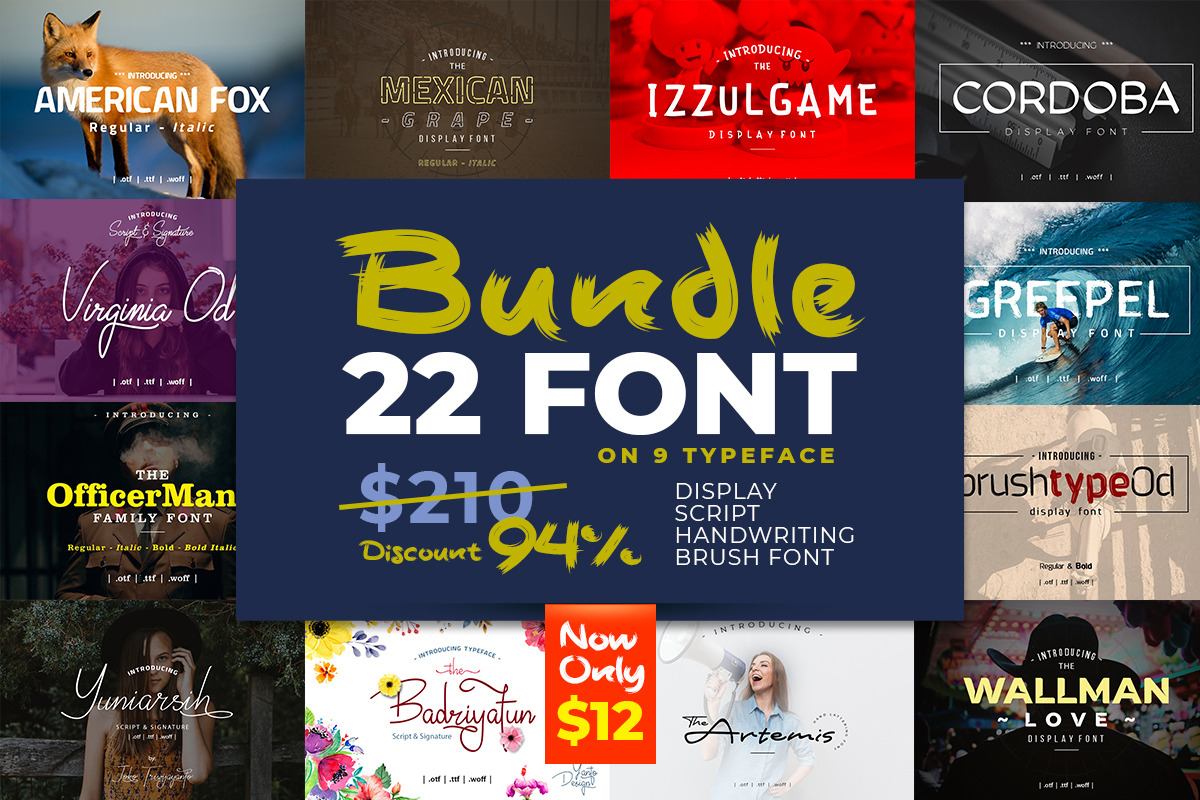
The 22 in 1 Wonderful Font Bundle Free Download
Each font in this collection has its own personality, giving you a complete toolbox to handle a variety of design moods—from classy and romantic to fun and trendy. Most fonts in the bundle include uppercase and lowercase letters, numerals, punctuation, and multilingual support, offering flexibility for global creatives.
Whether you're designing for business or personal use, The 22 in 1 Wonderful Font Bundle is a must-have asset for adding beauty, variety, and quality to your typography.